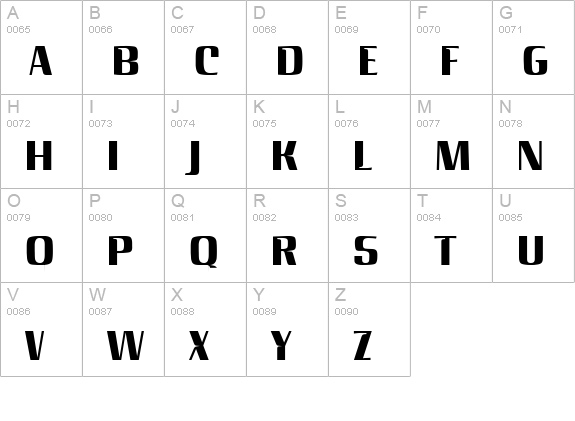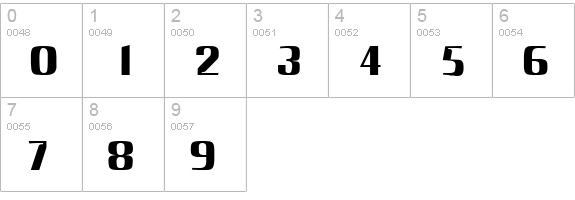
Invers SF Font Details
Invers SF is a stunning, modern font that combines sleek lines with a touch of retro charm. Its unique design captures the essence of the bustling cityscape, making it the perfect choice for projects that require a contemporary and urban feel. With its clean and bold letterforms, Invers SF is incredibly versatile and can be used for a wide range of design applications. Whether you're working on branding materials, editorial layouts, or web designs, this font is sure to make a lasting impression. Its legibility and readability ensure that your message will be conveyed with clarity and impact. But what sets Invers SF apart is not just its aesthetic appeal, it's also the fact that it is available for free! That's right, you can download this font at FontsMarket.com without having to spend a dime. Its creators believe in making high-quality design resources accessible to all, and this font is a testament to that commitment. So why wait? Add a touch of contemporary elegance to your designs with Invers SF and experience the freedom of creativity that comes with a freely available font. Download it now at FontsMarket.com and let your imagination soar!